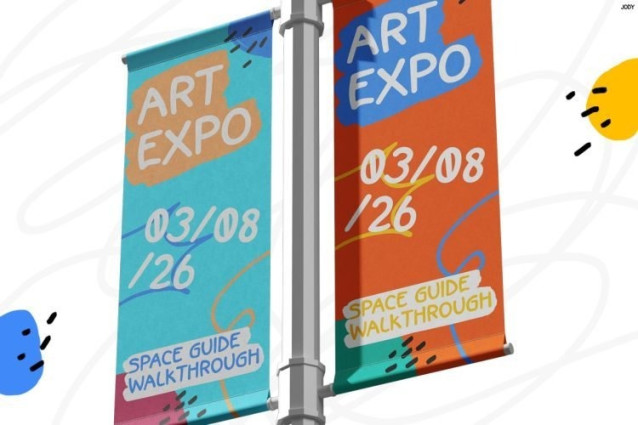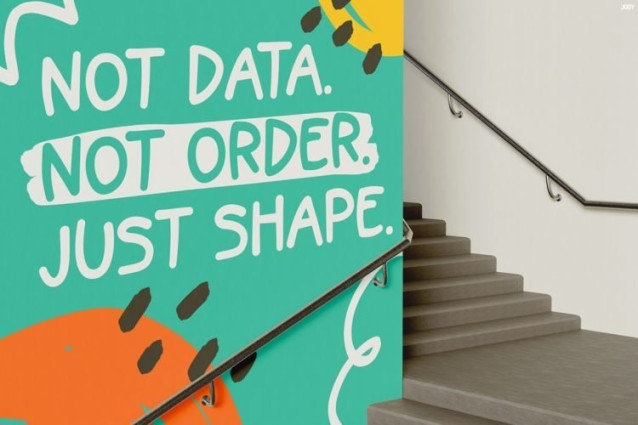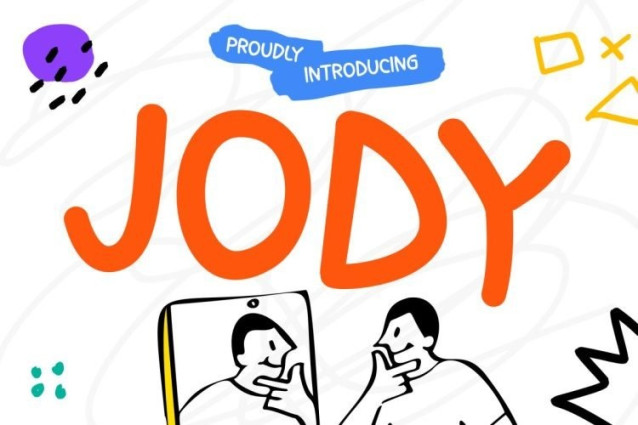
Jody Font
Jody Font is a playful display font packed with personality. Inspired by authentic marker lettering, it features bold strokes, organic shapes, and handcrafted charm. As a result, every word feels lively and memorable. Moreover, its imperfect letterforms create a natural rhythm that catches the eye. Unlike standard display fonts, Jody embraces creativity and spontaneity. Therefore, it is perfect for projects that need a fun and artistic touch. Additionally, the font stays clear and readable, even at larger sizes. Because of its bold appearance, it helps headlines stand out instantly.
Jody is ideal for designers, artists, and content creators. Whether you’re designing posters, packaging, social media graphics, or merchandise, Jody adds energy to every layout. Furthermore, its friendly style works well for both print and digital projects. Meanwhile, its bold character helps important messages grab attention faster.
This font is perfect for creative agencies, teachers, illustrators, students, marketers, and small business owners. In addition, bloggers and content creators can use it to build a stronger visual identity. Most importantly, it suits anyone who wants authentic handwritten